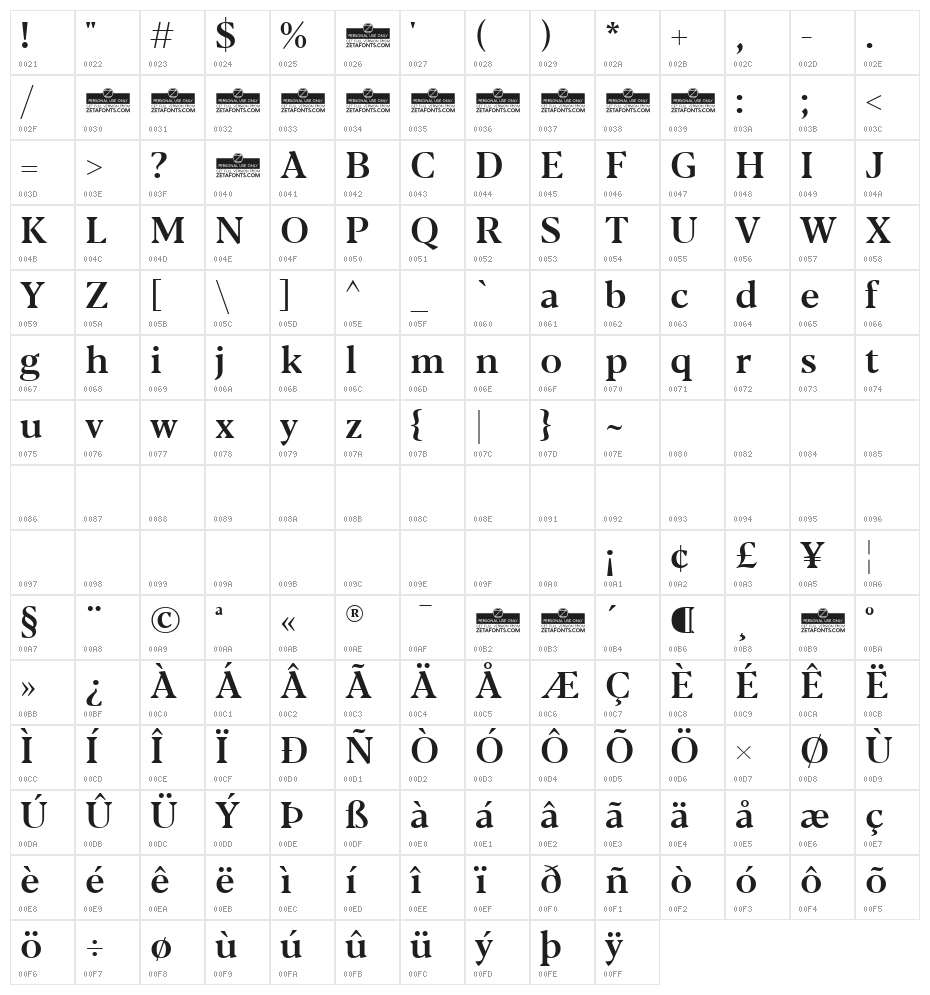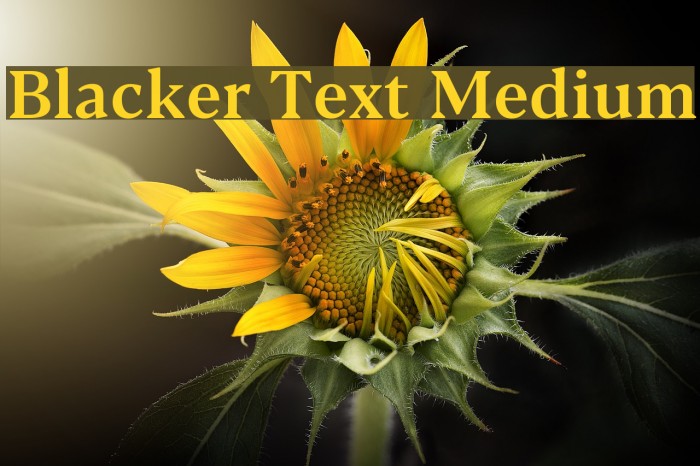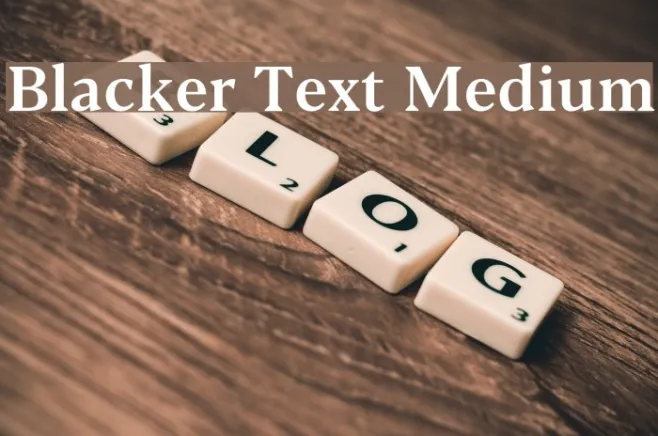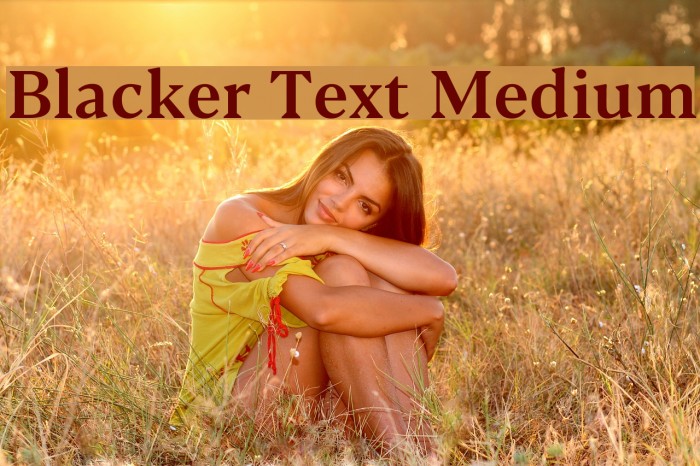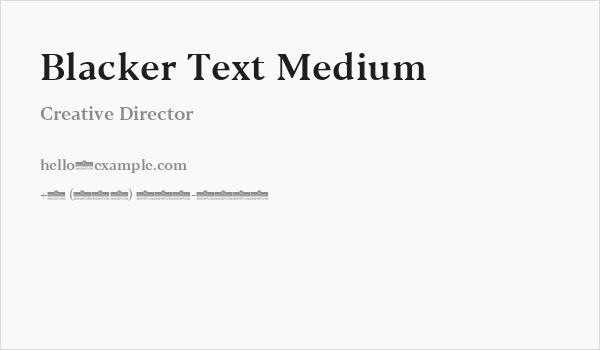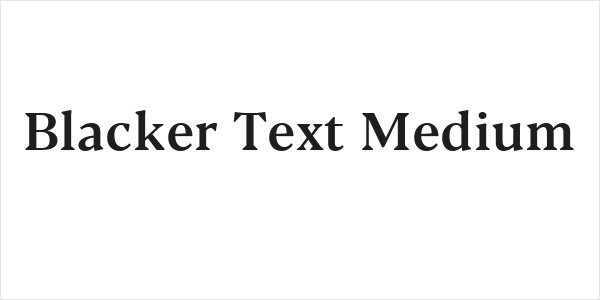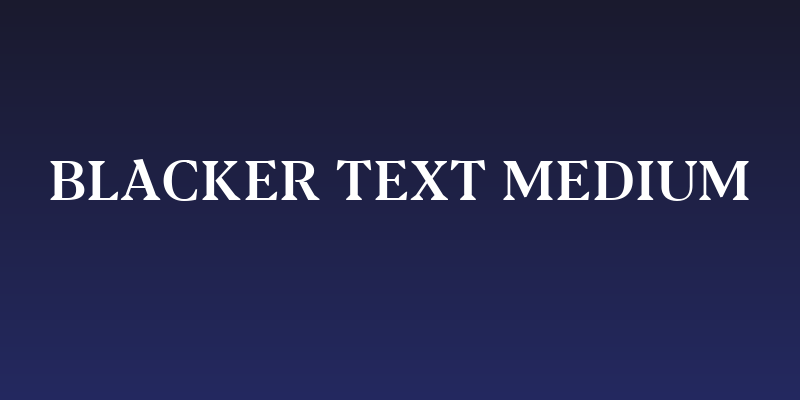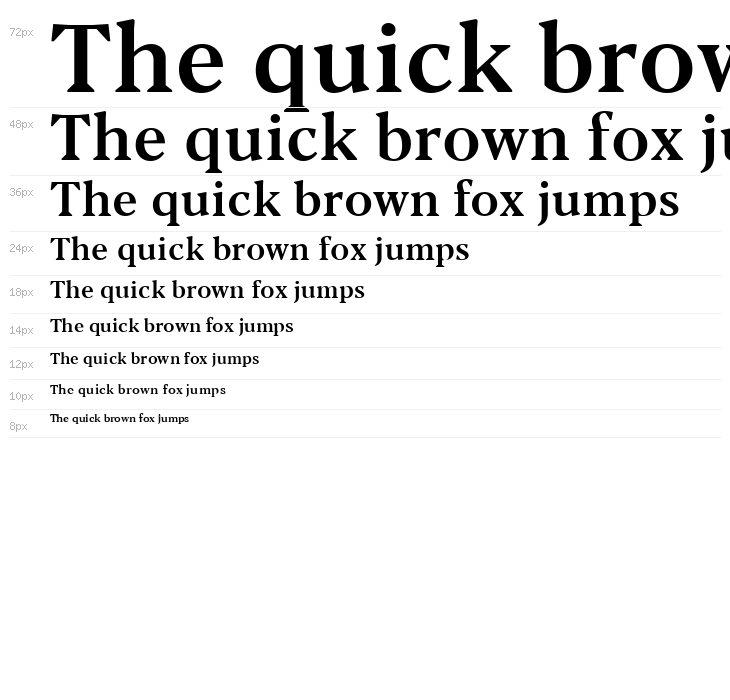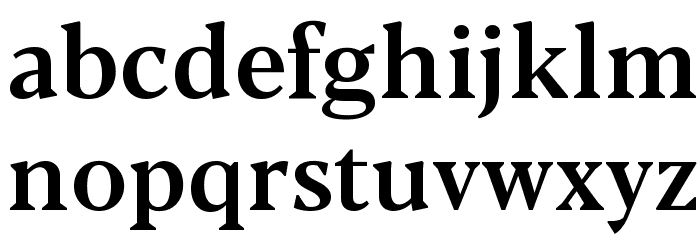
Blacker Text Medium Font
Blacker Text Medium Description
This font features a bold and authoritative presence with its strong, thick strokes and high contrast between thick and thin lines. The serifs are pronounced, adding a classic touch to the overall modern design. The uppercase letters are robust and commanding, while the lowercase letters maintain a consistent and harmonious flow. The numerals are clear and easily readable, making them suitable for various applications. Special characters are well-defined, ensuring versatility in usage. The font's structure is balanced, providing a sense of stability and reliability.
| Use Case | Headlines, Logos, Editorial design |
| Proposed Projects | Ideal for editorial design, book covers, branding, and advertising where a strong, classic presence is desired. |